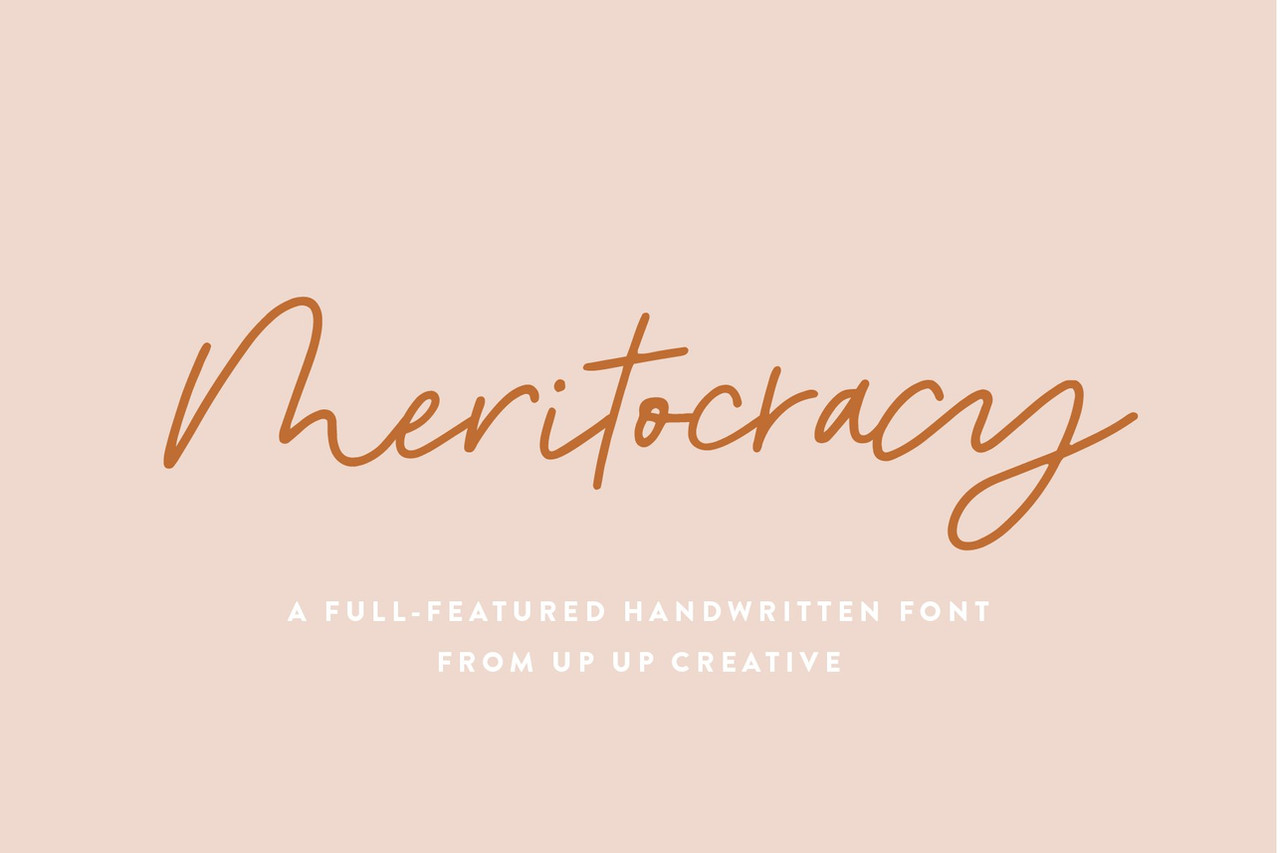
**Introducing Meritocracy, a full-featured handwritten font with tons of alternate characters and OpenType features. My goal with this font was to make you a typeface that will look as much like hand lettering as possible. Using the built-in OpenType pseudo-random contextual alternates and over 300 individually drawn ligatures, you can infuse your typography with personality and variety.** *OpenType Features*